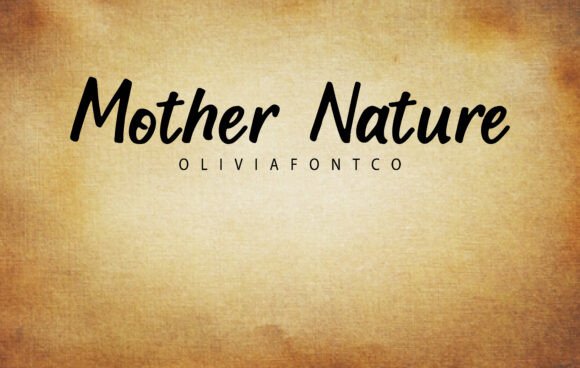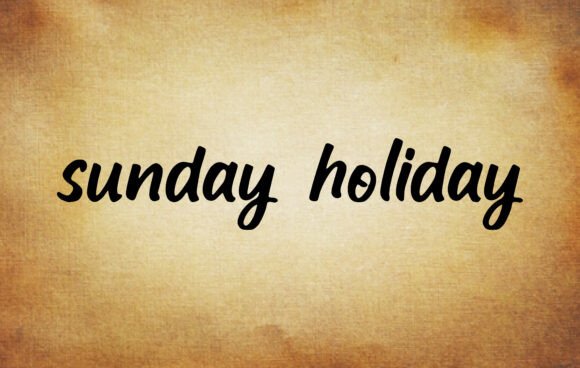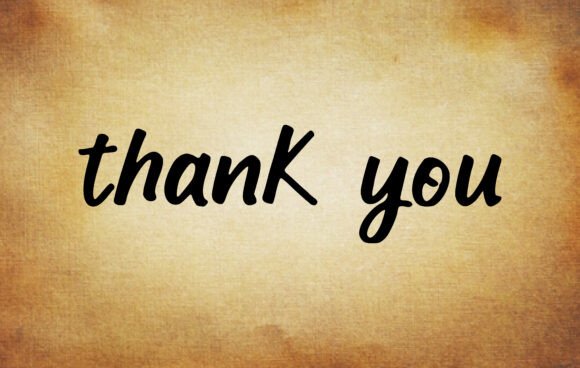
Mother Nature Font
About the Mother Nature Font
We are excited to introduce Mother Nature Font, a must-have typeface for any serious designer. This font is designed to be a true favorite and it has the potential to take your creative ideas to the highest level
Mother Nature Font’s strong, organic forms make it ideal for headlines, branding applications requiring a natural feel, and posters where a bold statement is needed. It works well for short text blocks on packaging, but its slightly less-than-optimal x-height makes it less suitable for body text or long-form content such as lengthy website copy or UI elements.
The font’s core personality is robust and friendly, conveying a sense of approachability while remaining impactful. For a balanced aesthetic, pair it with a clean sans-serif like Montserrat for a modern feel or a classic serif like Garamond for a more traditional touch. Consider a script font like Great Vibes for wedding invitations or other projects requiring a touch of elegance.
Avoid pairing it with other heavily stylized or overly decorative fonts; this could lead to visual clutter. Mother Nature Font thrives when it’s given space to breathe, and a simpler accompanying typeface helps showcase its unique charm.
Mother Nature Font Usage Examples
Mother Nature Font Example